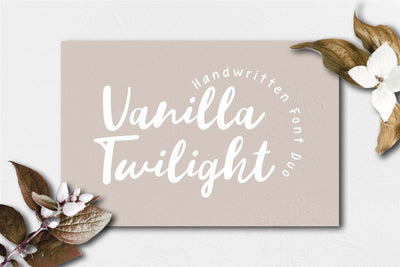
Vanilla Twilight // Handwritten Font Duo
Vanilla Twilight is a collection of handwritten fonts for every design project that requires a light, cute and charming feel. Use it to make any design project stand out!
Multilingual support - spread your message globally AÀÁÂÃÄÅCÇDÐEÈÉÌÍÎÏIÌÍÎÏNÑOØÒÓÔÕÖUÙÜÚÛWYÝŸÆßÞþ Coded PUA Characters